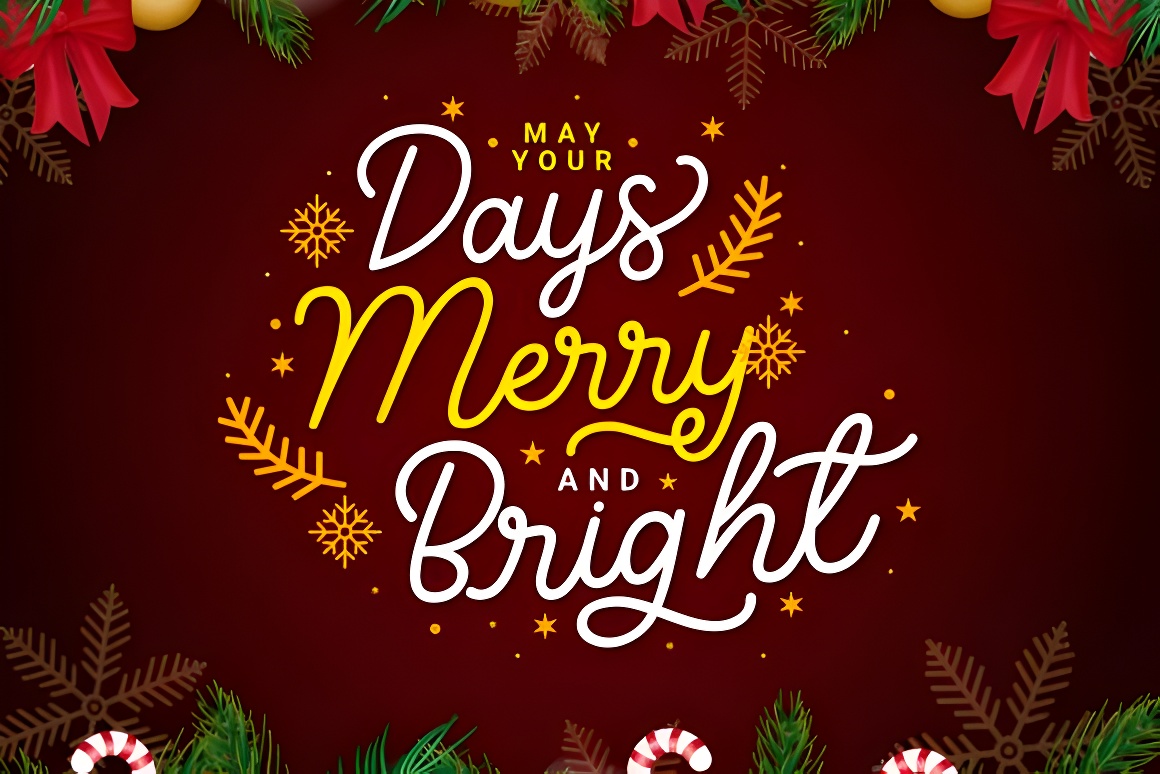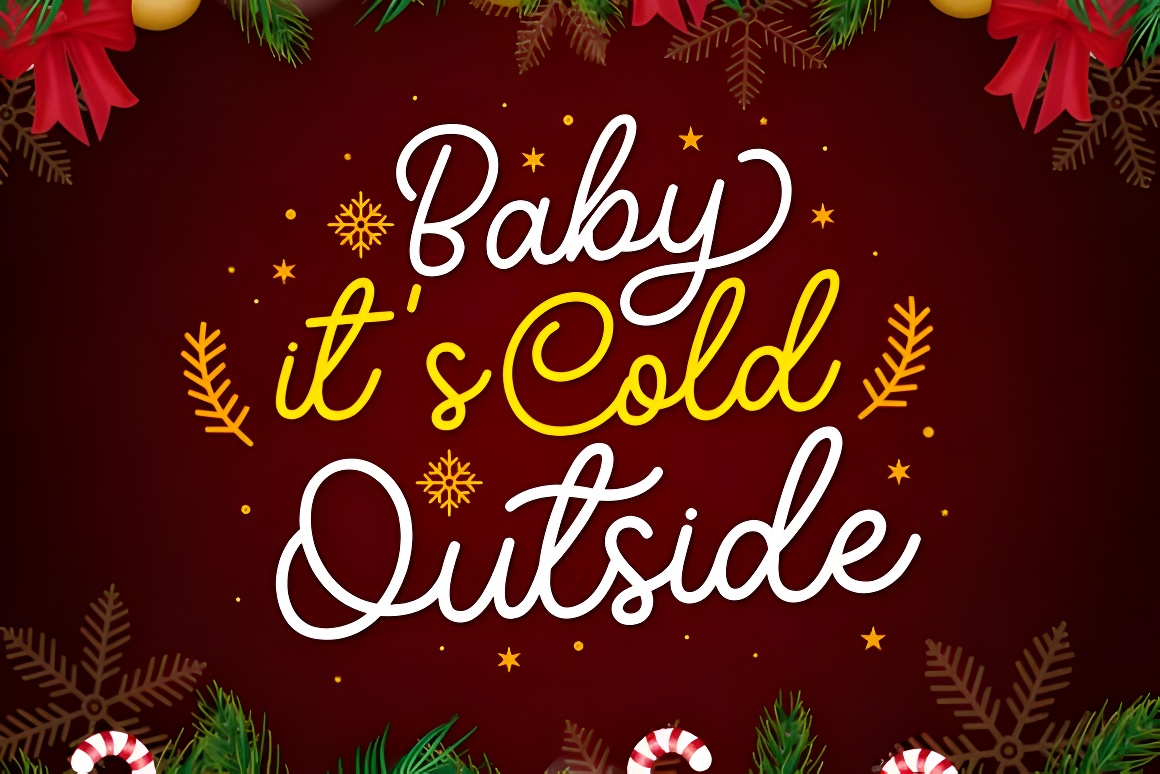
Shining Christmas Script Font – Elegant Holiday Calligraphy Style
Elegant modern script font perfect for holiday branding, invitations, wedding designs, social media posts, logos, stationery, and festive calligraphy projects.